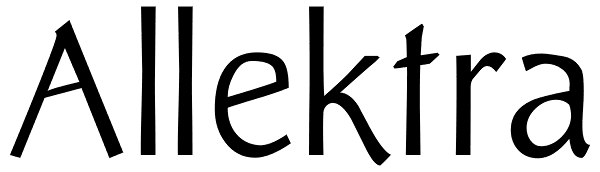
Allektra
Allektra is a humanist sans serif with a modern feel. It is not as whimsical as many of my fonts, but there are many special dingbats for bullets, and so on. It has oldstyle numbers and the small caps versions have lining numbers and small caps...
Allektra Small Caps
Allektra Oblique
Allektra Fat
Allektra Black
Allektra